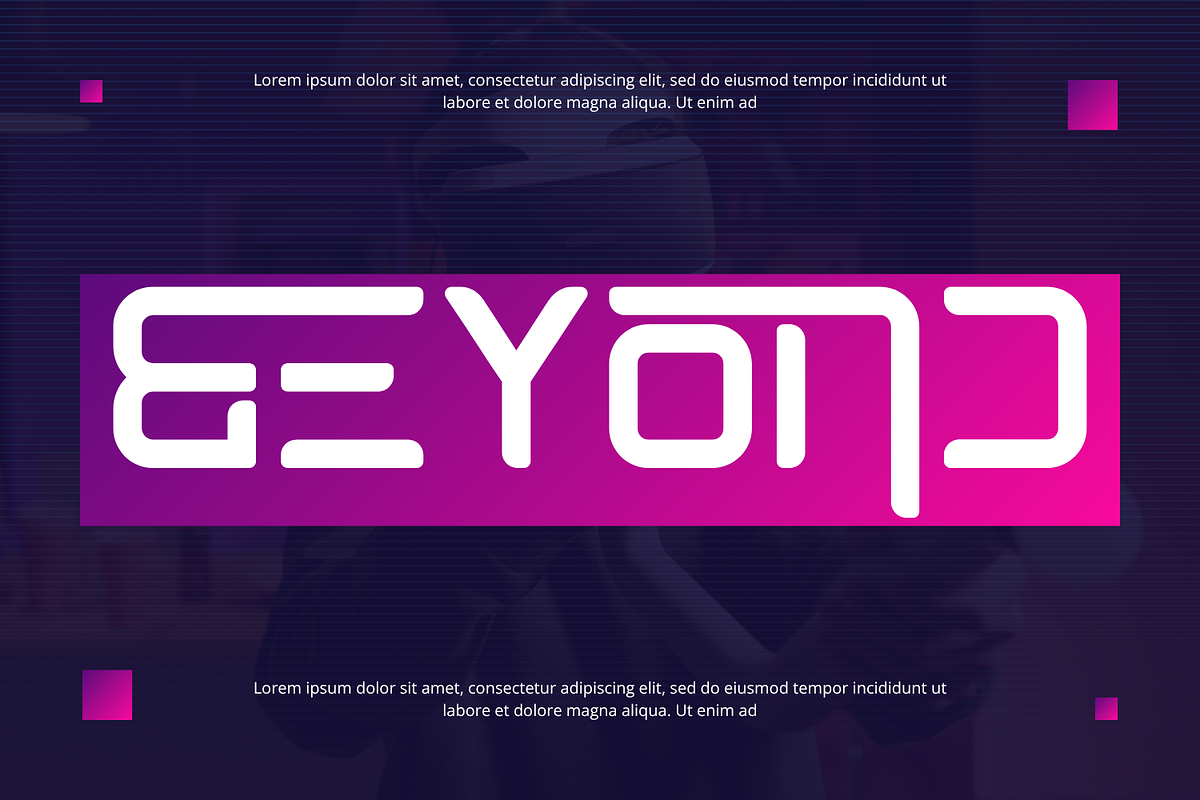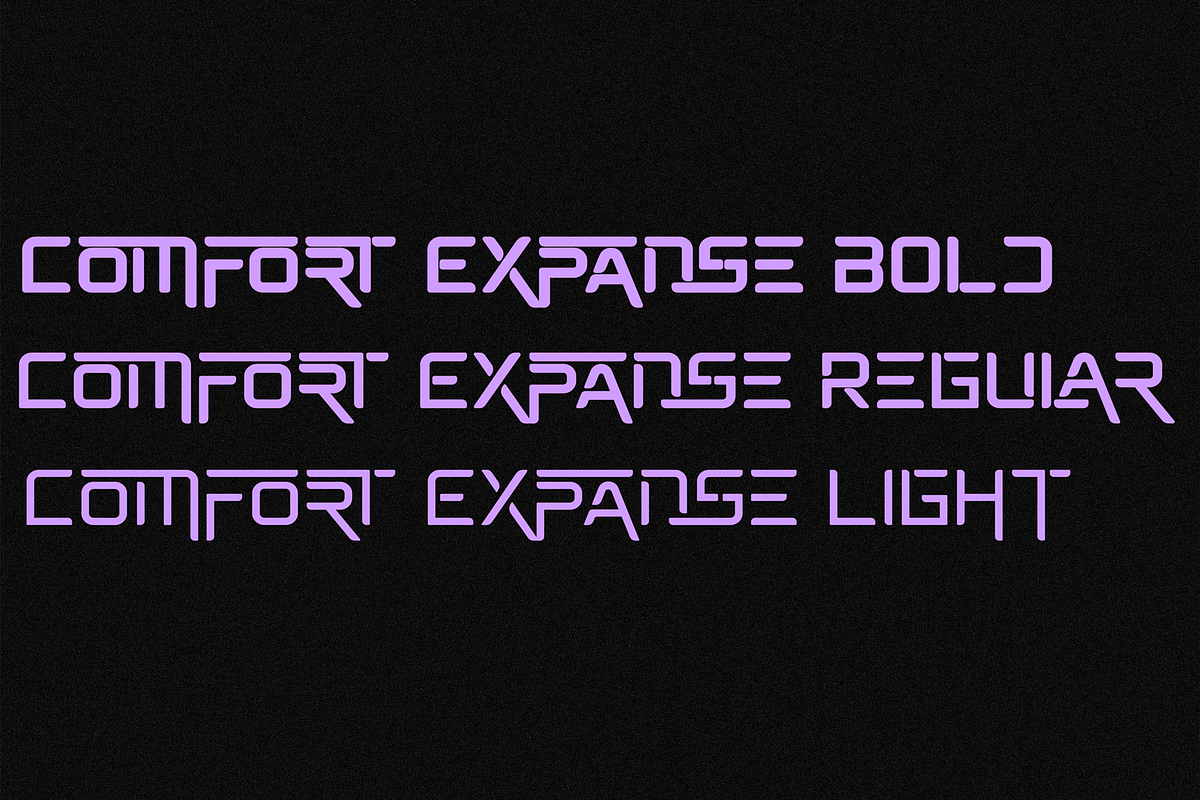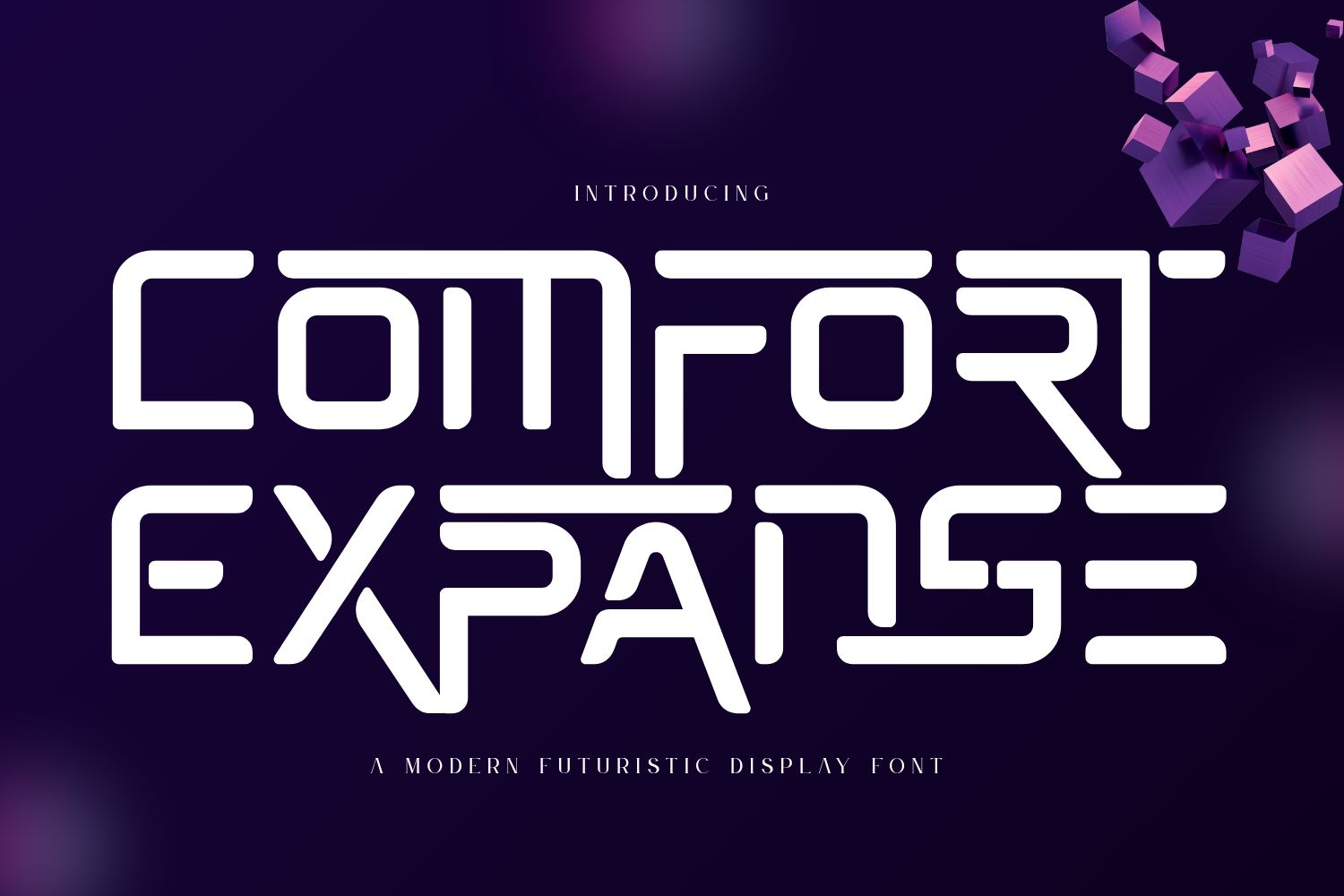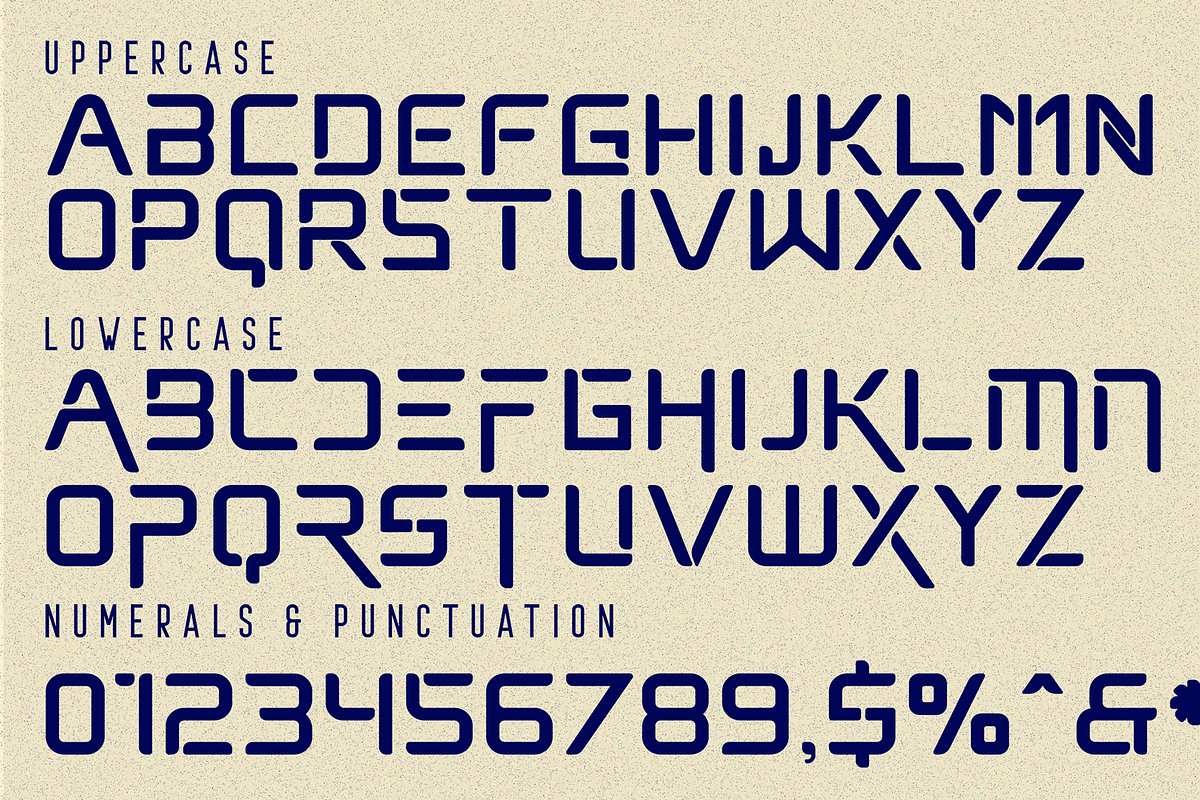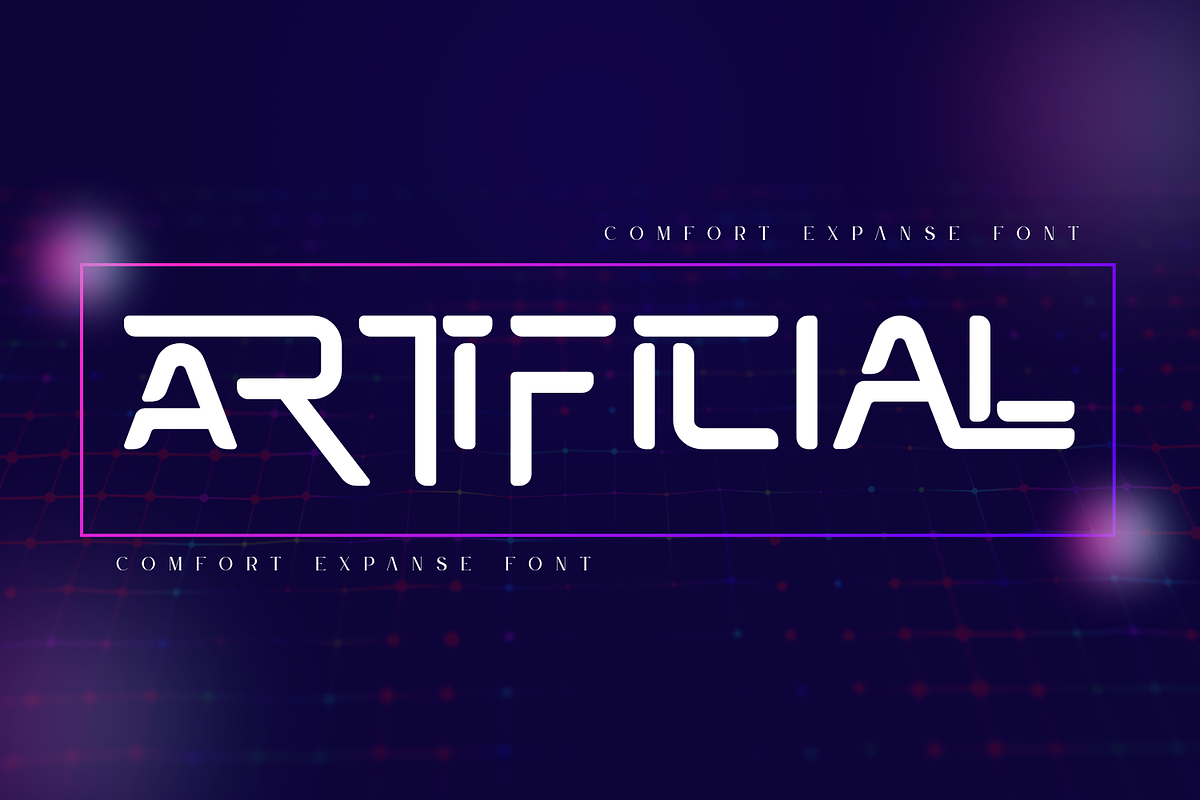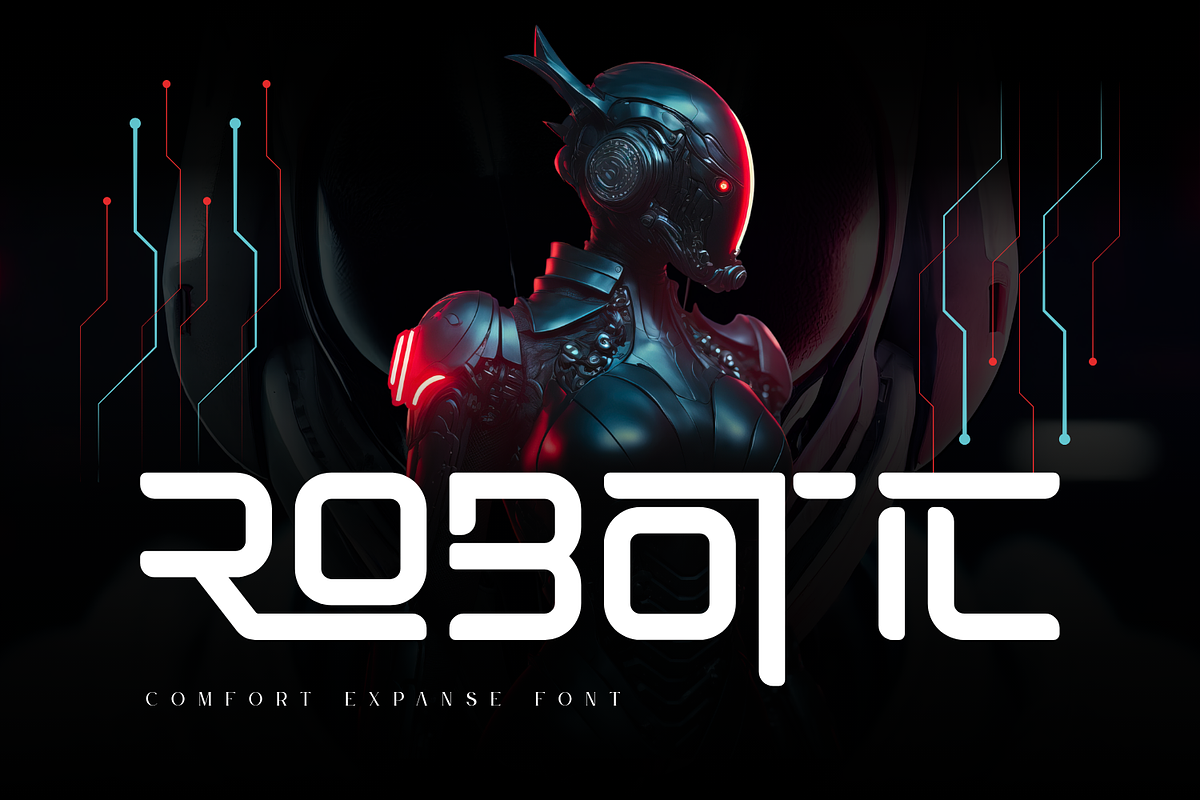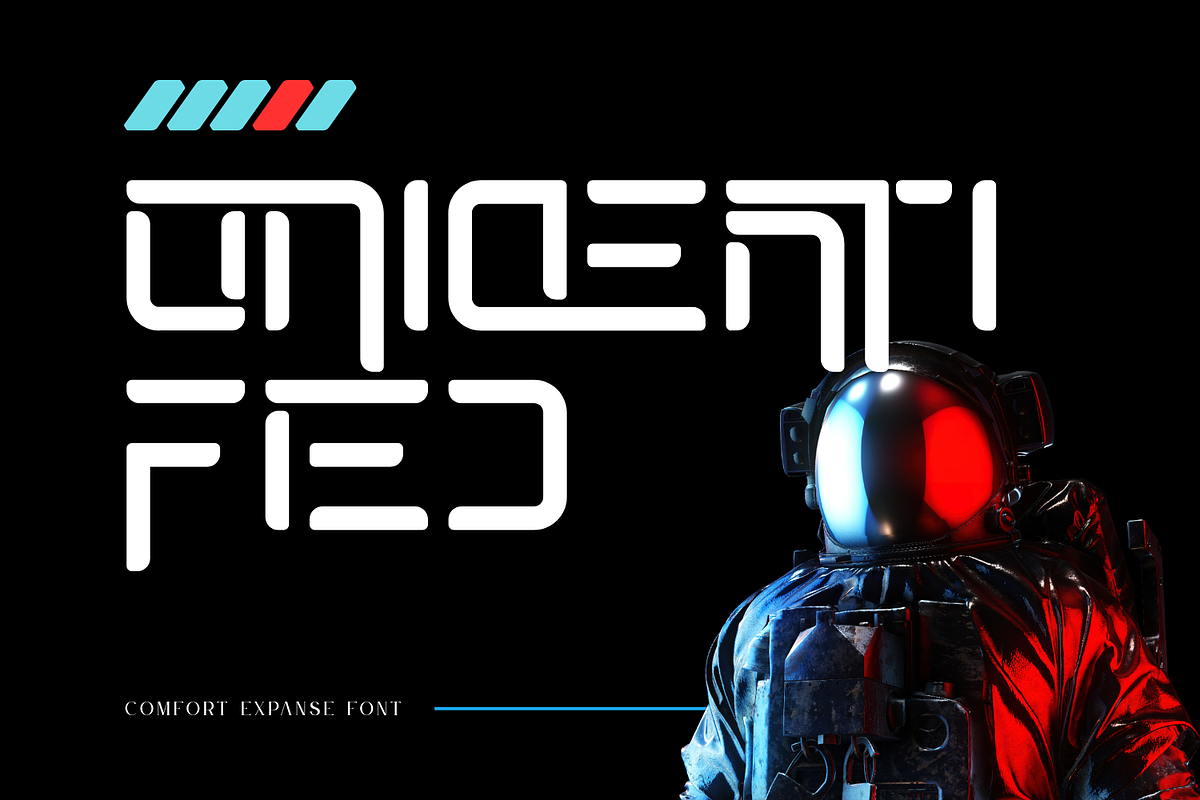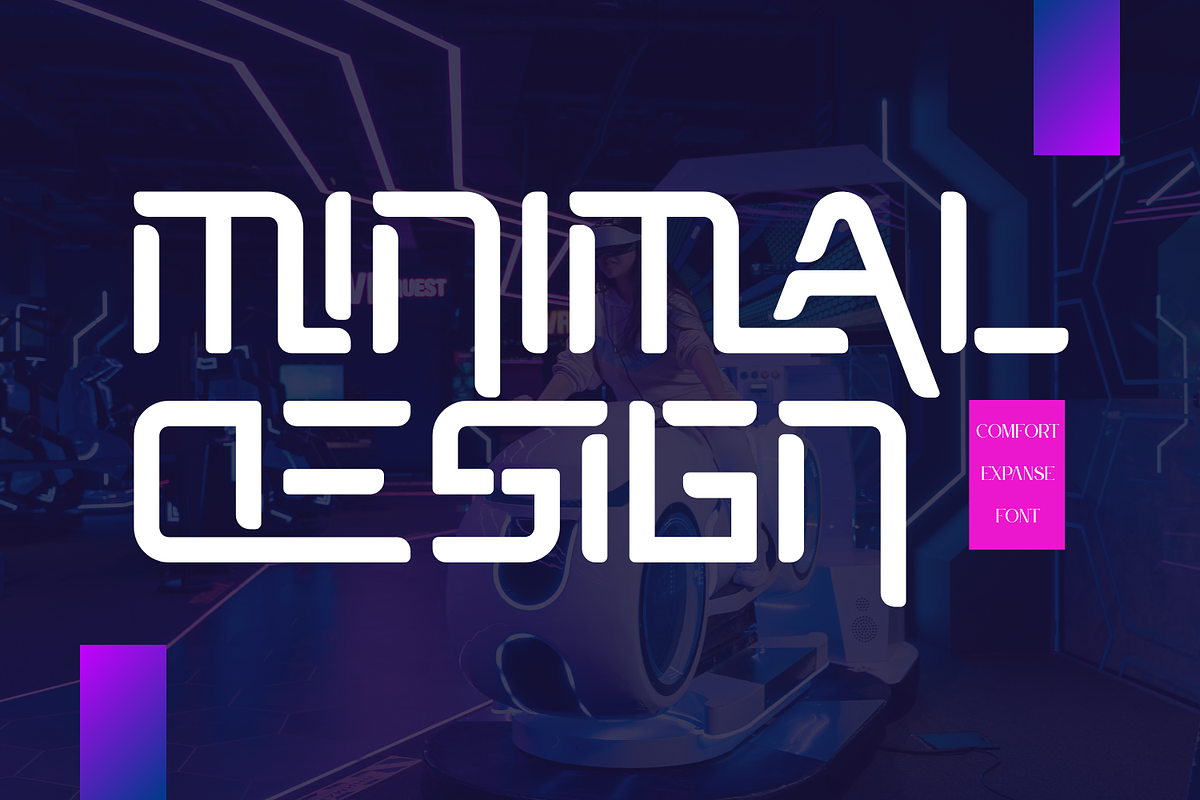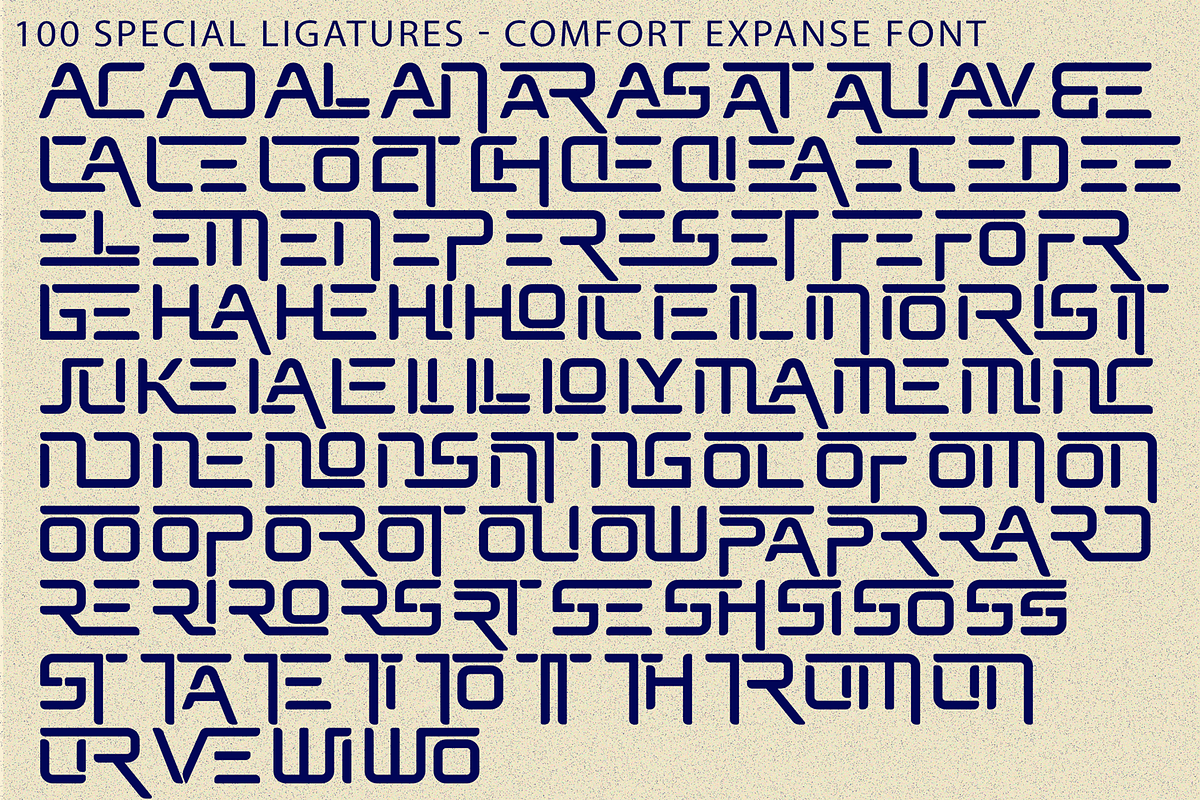
Comfort Expanse - Futuristic Font
Comfort Expanse - Futuristic Font is a futuristic rounded display sans-serif font designed with clean geometry, smooth corners, and modular letterforms. Its sleek structure creates a modern digital feel, while the rounded details add softness and visual comfort. With its minimal high-tech personality, Comfort Expanse is perfect for technology branding, UI design, sci-fi posters, gaming titles, startup logos, digital products, and futuristic visual identities.
🔤Features:
Uppercase & Lowercase Letters
Around 100 Special Ligatures & Alternates
Accented Characters for multilingual support
🔤About 100 ligatures combined with Stylistic Alternates Font:
ac ad al an ar as at au av be ca ce ch co ct de di ea ec ed ee el em en ep er es et fe fo fr ge ha he hi ho ie ic il in io ir is it ju ke la le li ll lo ly ma me mi nc nd ne ng no nt ns oc of om on oo op or ot ou ow pa pr ra rd re ri ro rs rt se sh si so ss st ta te th ti to tr tt um un ur ve wi wo